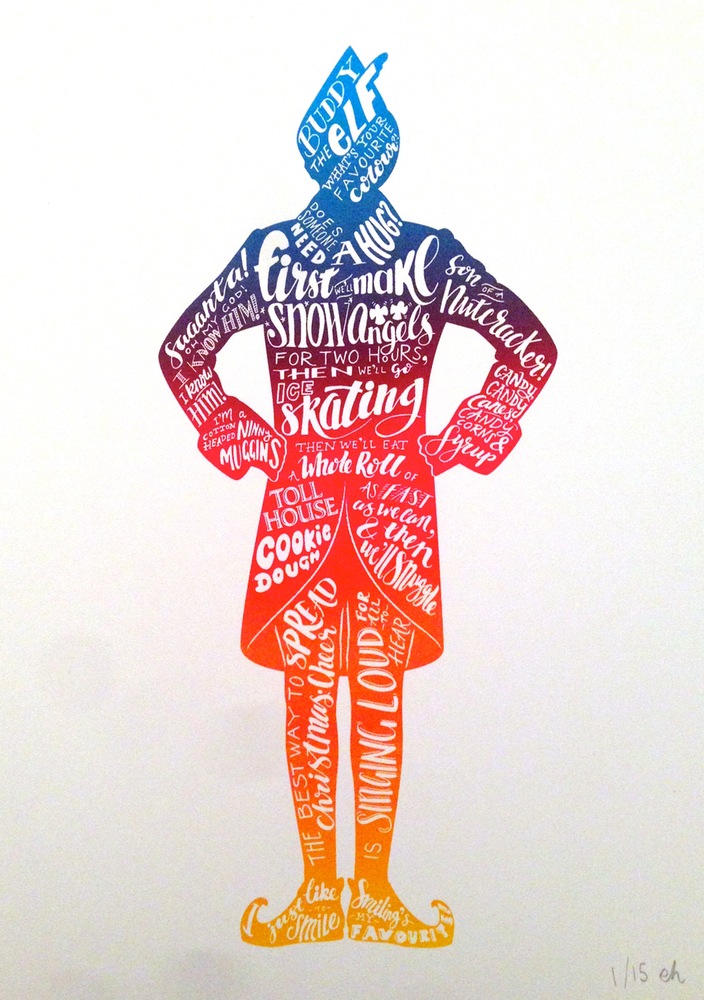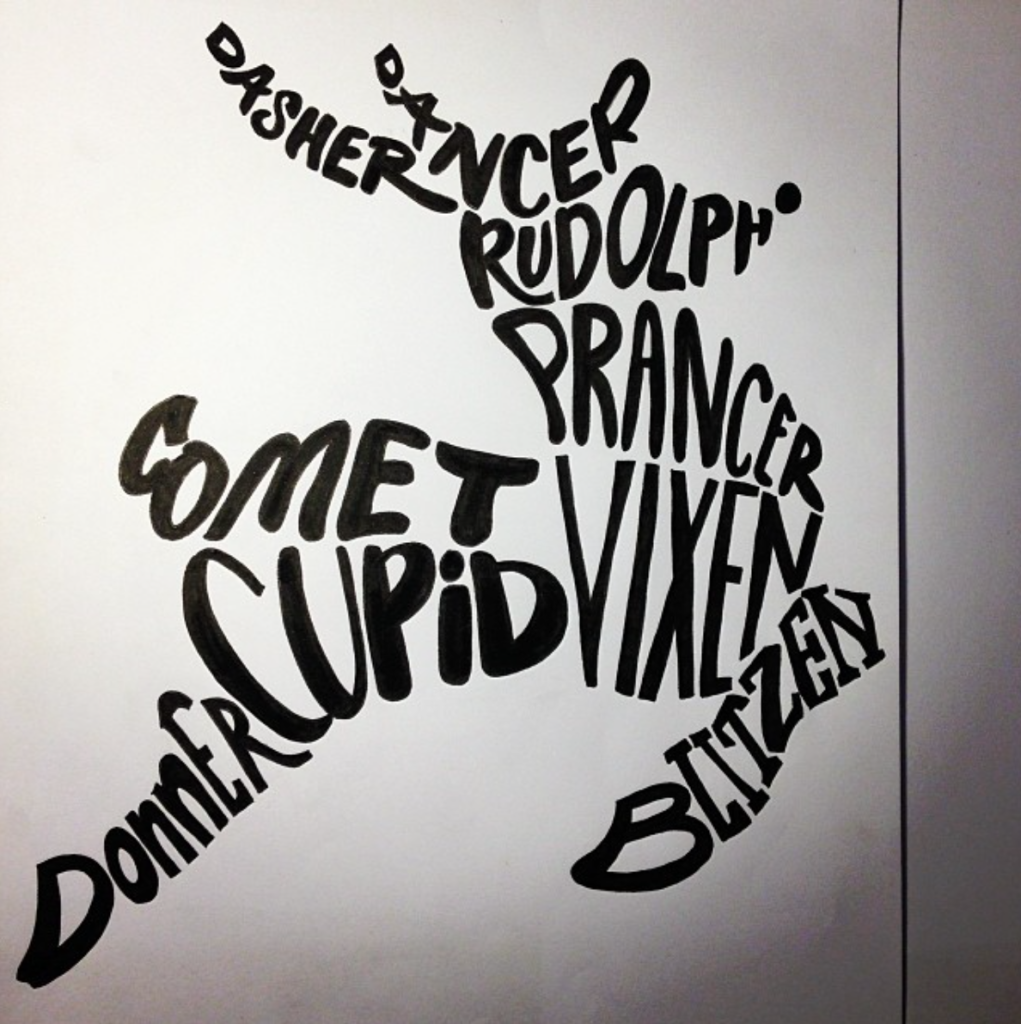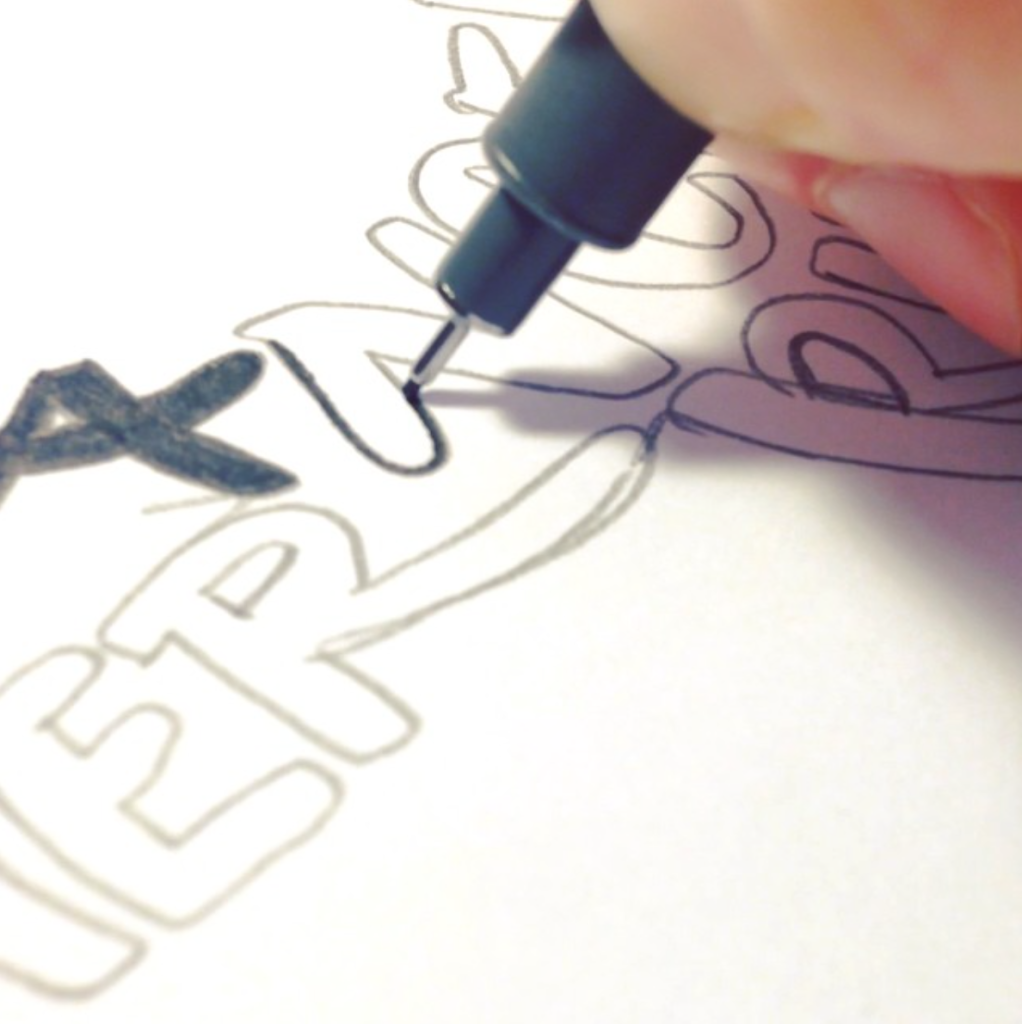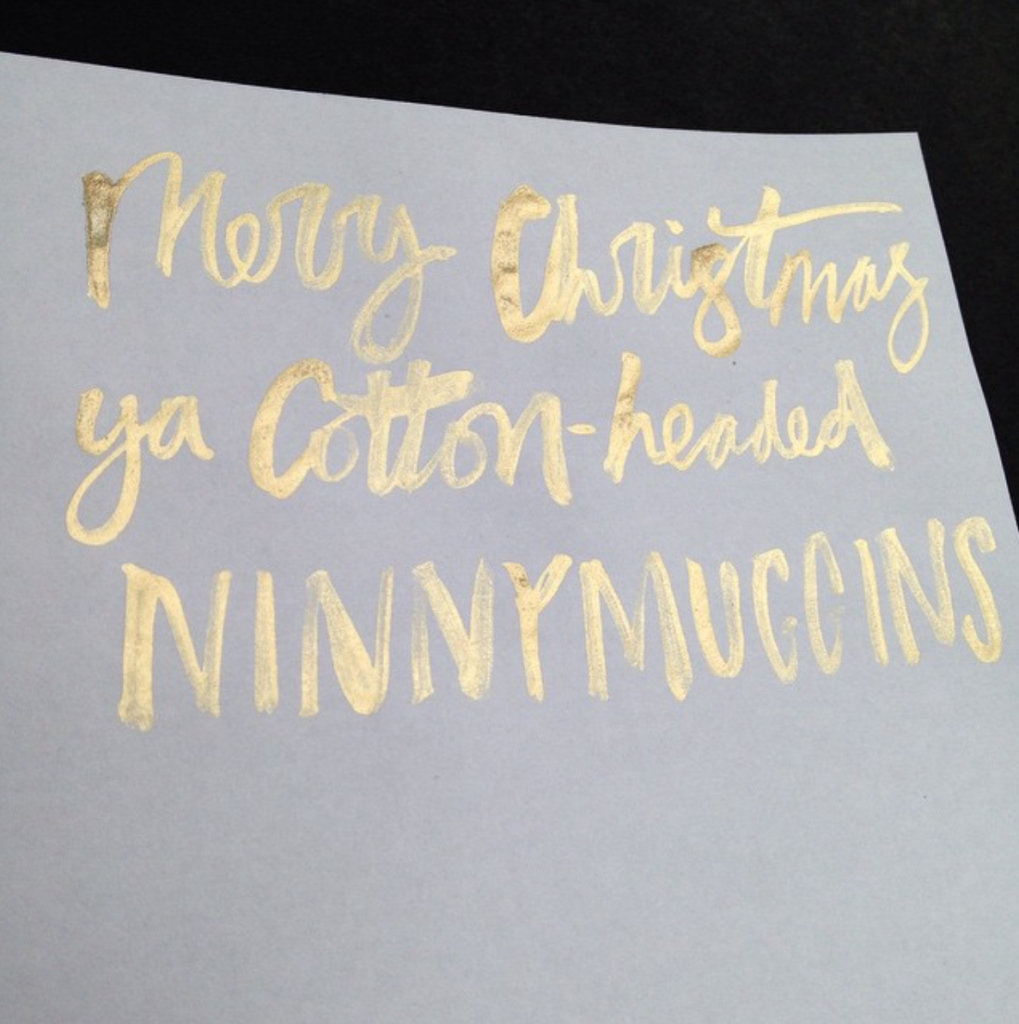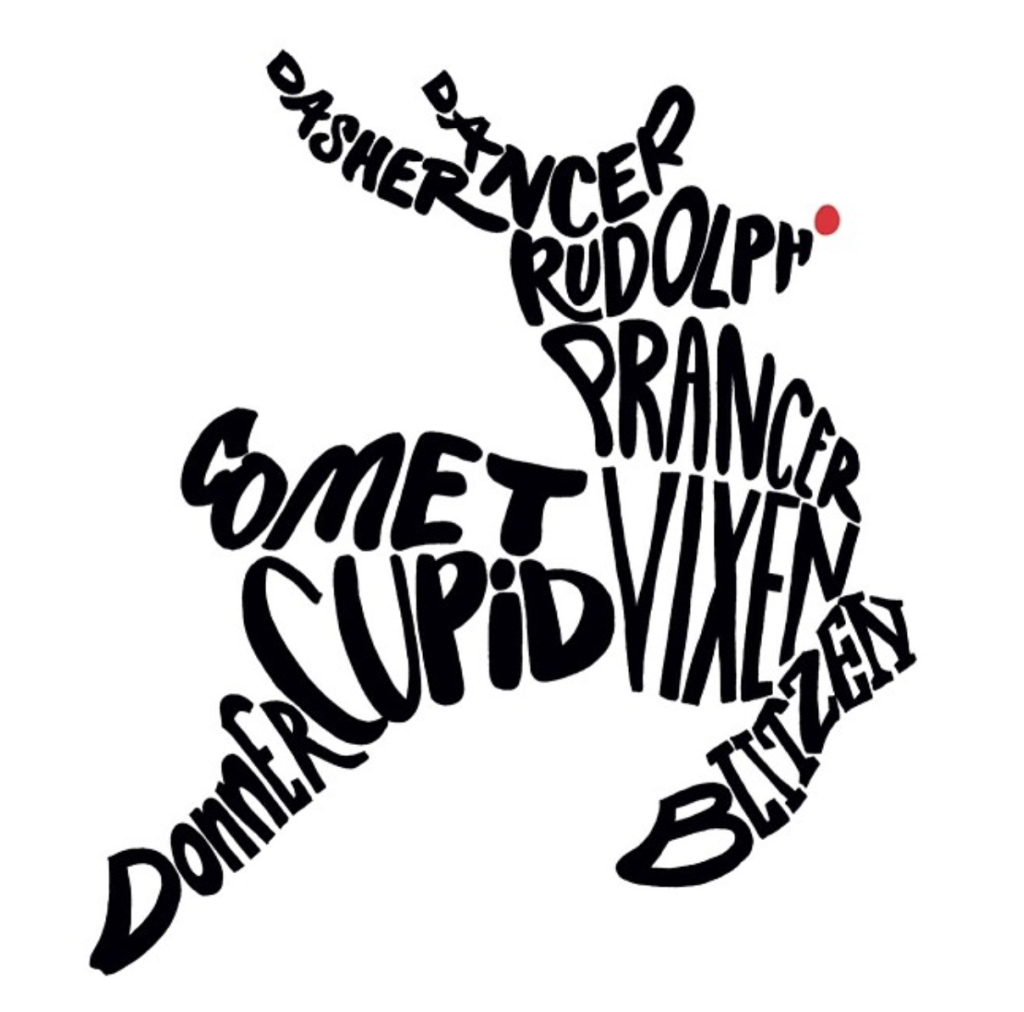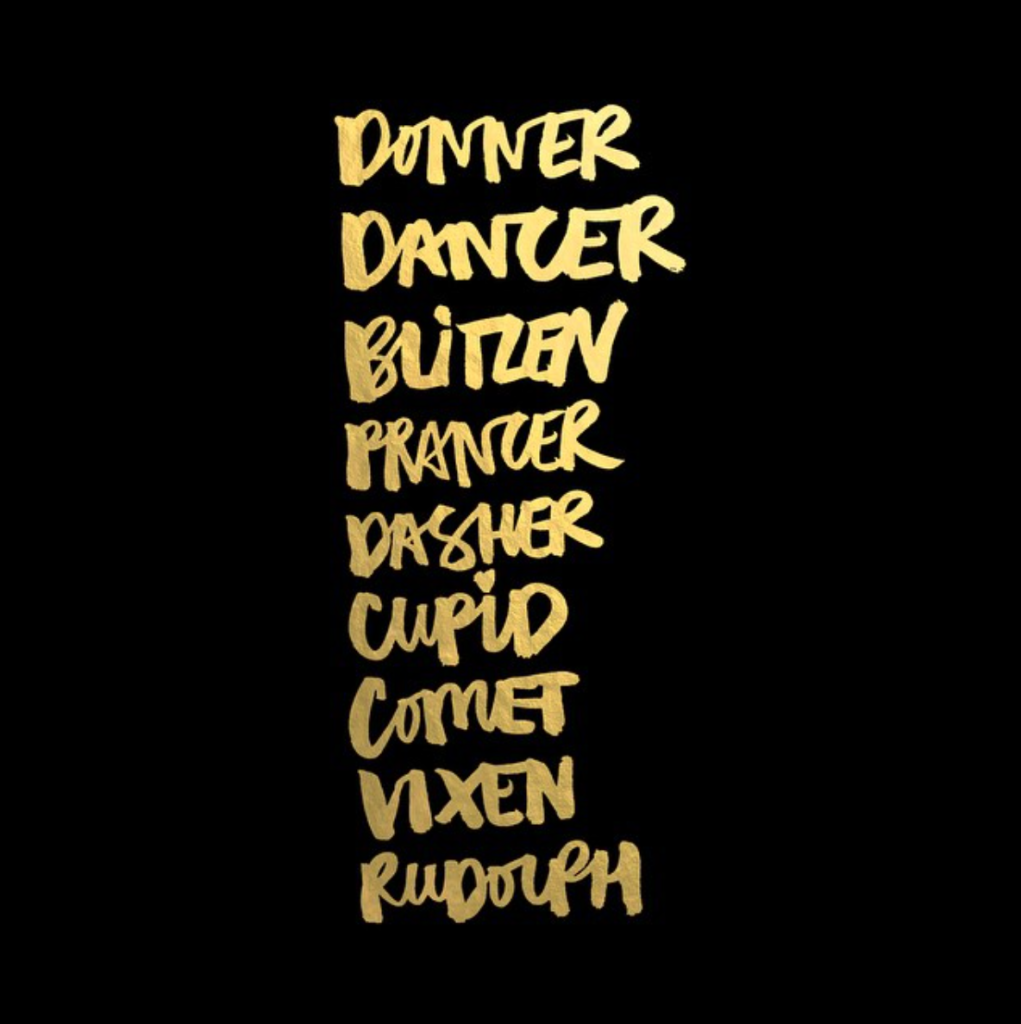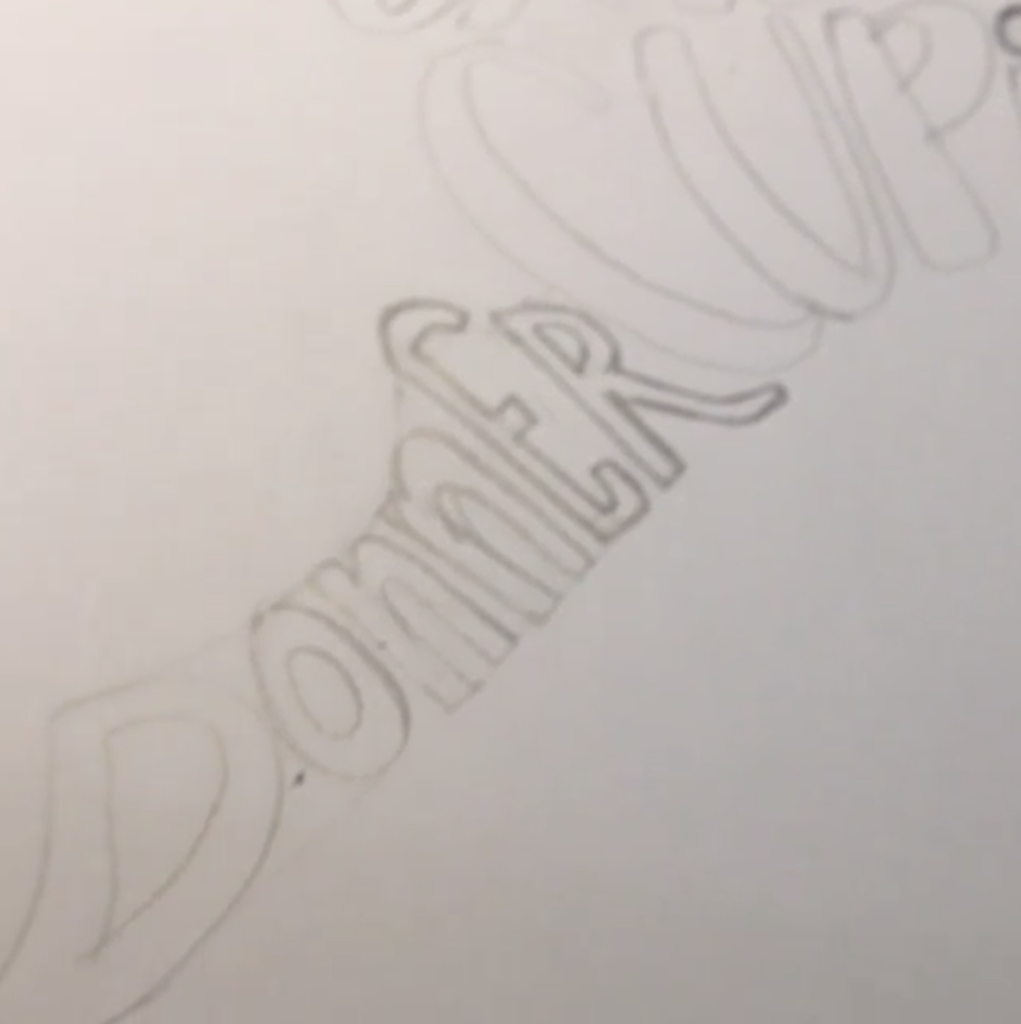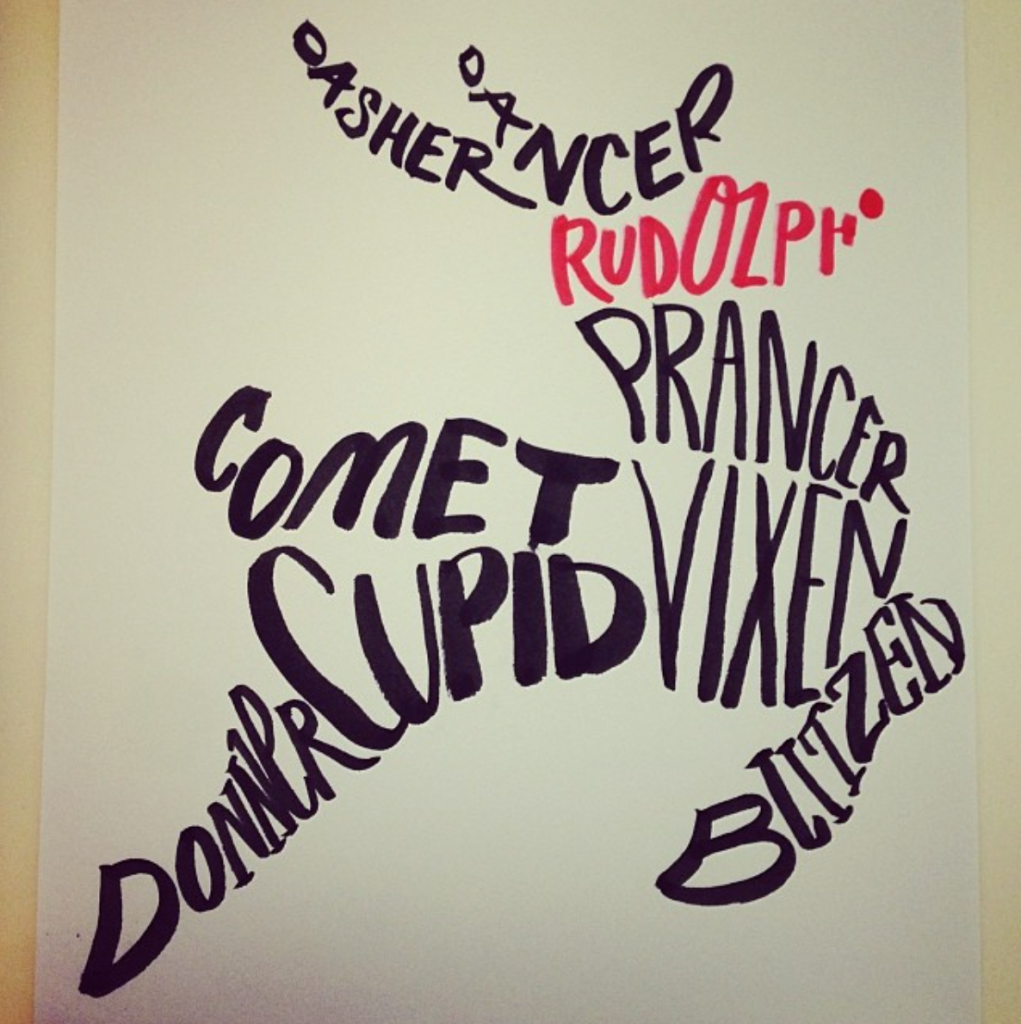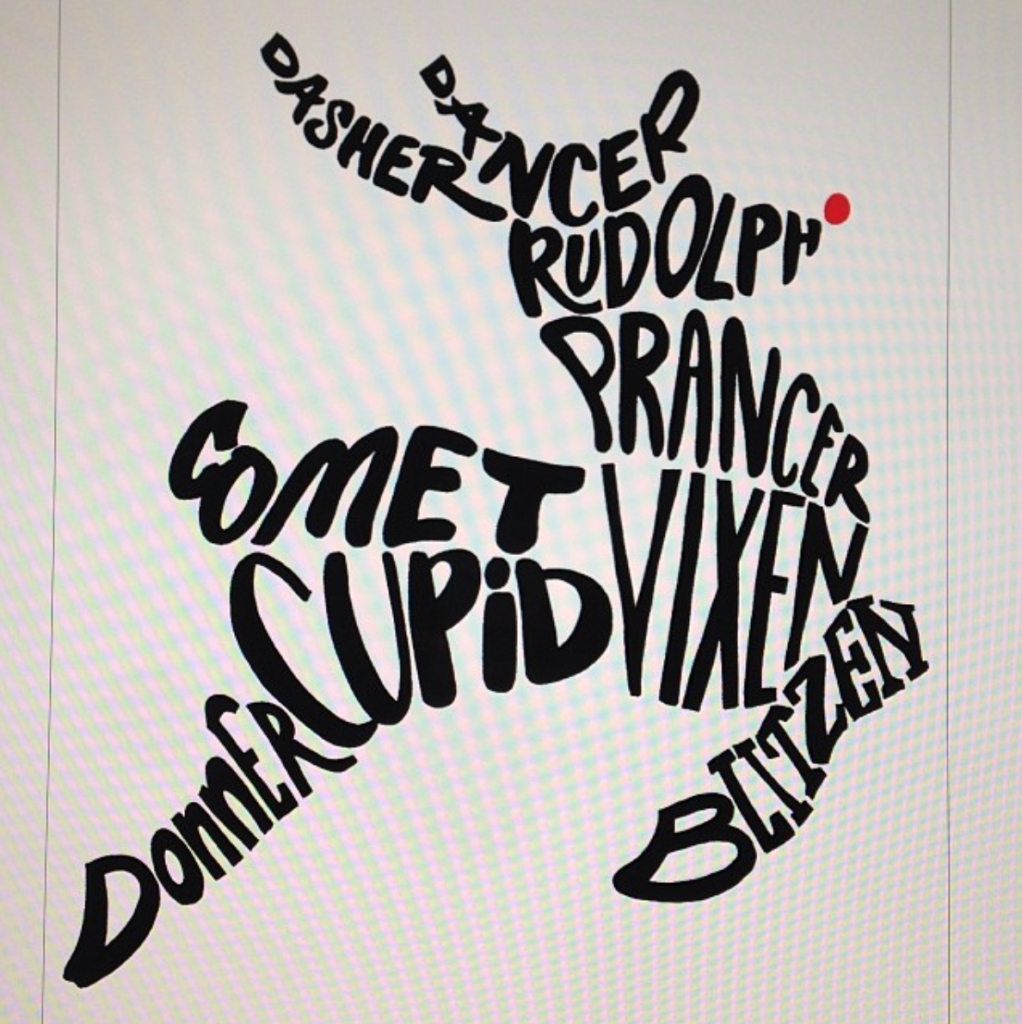
Creating Festive Hand Lettered Cards With Emma Holmes
Creating Festive Hand Lettered Cards With Emma Holmes - Lettering TutorialI’m joined by one of Lettering Tutorials ‘Lettering Legends’ Emma Holmes for the first part of a festive feature series over the holiday season. Emma mostly specialises in brush lettering and has created some really unique Christmas pieces of work in the past.
I’ve invited Emma onto Lettering Tutorial to share the process that she used to make some awesome reindeer Christmas cards. Emma’s provided easy steps so that you can follow along too, and have a try at making you’re own hand lettered cards!
I first asked Emma what she enjoyed most about Christmas.
“Oh man. I just love the whole thing! The magic and spirit of it all. The good vibes. I especially love the movies and the quotes from those movies.
Reindeer Names Emma Homes - Lettering Tutorial
Elf is by far my favourite.
Cotton Headed NinnyMuggins Emma Holmes - Lettering Tutorial
Oh and olaf snowflakes!
Olaf Snowflake Emma Holmes - Lettering Tutorial
I like that there are annual traditions and imagery which you can tap into and create something that is instantly recognised, relatable, and that might bring a smile to someone’s face. That the things I create are usually being given as gifts feels great!
It’s a good time to hunker down and create things as it’s dark in the evenings in the UK.
This Elf screenprint sold out pretty quickly and I may end up doing some Giclee prints. I sometimes do those as special one offs for people.”
Elf Emma Holmes - Lettering Tutorial
Emma’s steps for making her hand lettered reindeer Christmas cards
Step One – “I found a reindeer outline online.”
Step Two – “I started to play with the word placement using a brush pen (Tombow).”
Reindeer Word Placement Emma Holmes - Lettering Tutorial
Step Three – “I refined the placement in pencil.”
Reindeer Refined Pencil Emma Holmes - Lettering Tutorial
Step Four – “I inked the outlines using Steadtler pigment fine liners.”
Inking Reindeer Outline Emma Holmes - Lettering Tutorial
Step Five – “I finalised the inking by filling in all of the letters.”
Final Inked Reindeer Emma Holmes - Lettering Tutorial
Step Six – “Next I scanned it in to my computer and colorised the nose.”
Scanned Reindeer Coloured Nose Emma Holmes - Lettering Tutorial
Step Seven – “I sent the final image to a printers so it could be printed out on cards.”
Reindeer Final Version Emma Holmes - Lettering Tutorial
“The finished cards.”
Finished Reindeer Cards Emma Homes - Lettering Tutorial
I asked Emma if she had any final thoughts, tips, or considerations when it comes to lettering or the holiday season.
“YES! in the words of Buddy the Elf, the best way to spread Christmas cheer, is singing loud for all to hear.